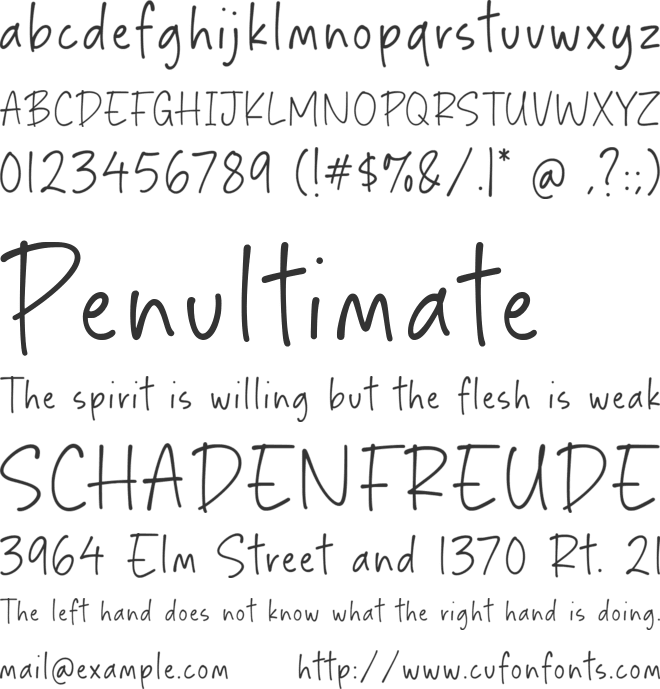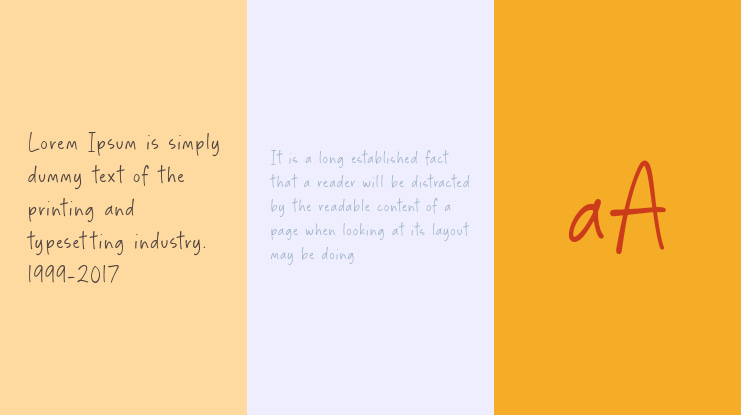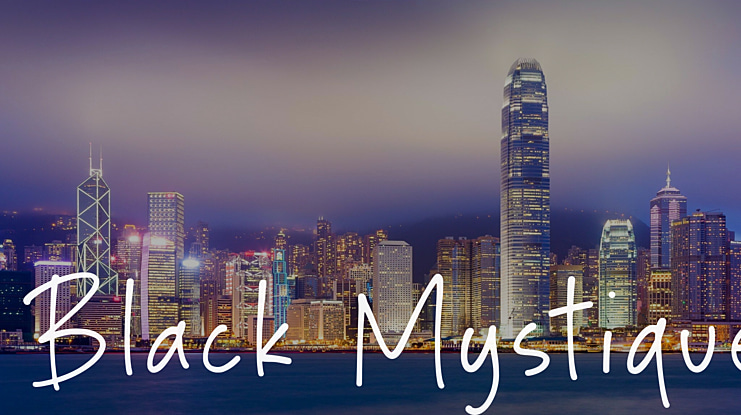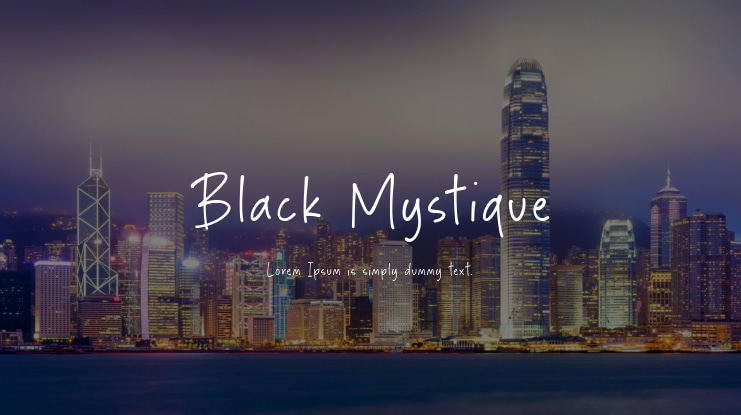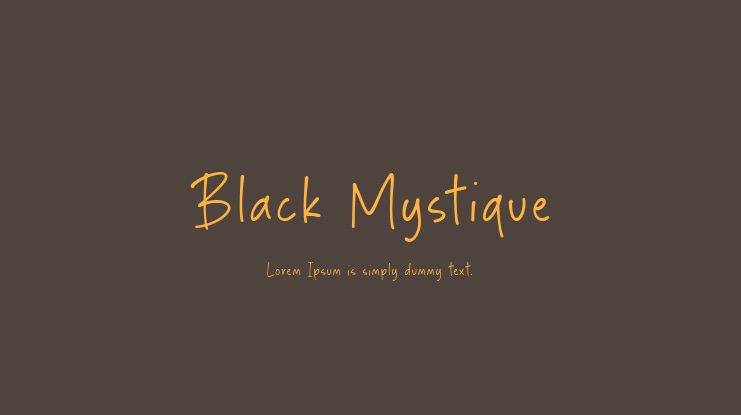
Black Mystique Font
Introduced by Timur type
Proudly Present Black Mystique
Black Mystique is a  Handwritten script font that is modern and fresh, and will bring a warm and inviting feel to your business. Take advantage of the fonts and experience the magic for yourself.
Black Mystique  is perfect for product packaging, branding project, megeenazine, social media, wedding, or just used to express words above the background.
Black Mystique Font Features premium :
-Full Set of standard alphabet and punctuation
– Black Mystique also multilingual support.